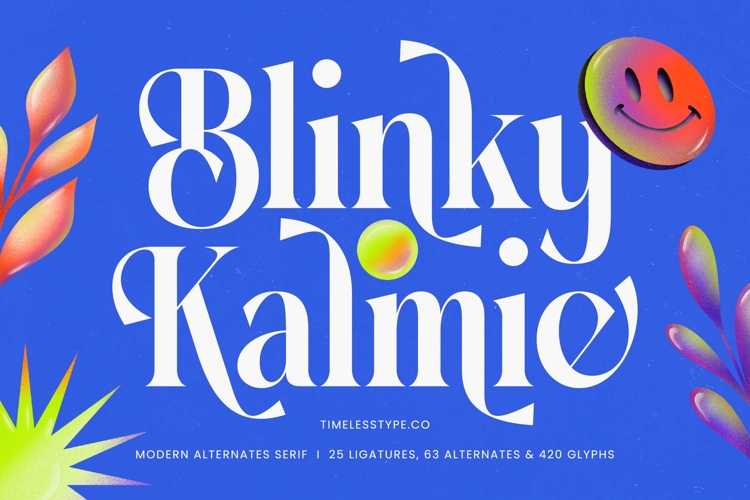
Blinky Kalmie - Modern Alternate Serif
Captivate your audience with unparalleled elegance and modern flair. Introducing Blinky Kalmie - Modern Alternate Serif, a font that masterfully blends timeless sophistication with a contemporary edge. Its distinctive high-contrast strokes and exquisitely designed curves create an instantly memorable and visually arresting presence, perfect for making a bold statement in any design.
Unleash boundless creative potential with Blinky Kalmie - Modern Alternate Serif. This versatile typeface boasts a rich collection of alternate characters and an array of elegant ligatures, providing exceptional customization options. Designers can craft unique, bespoke typography that adapts flawlessly to diverse brand narratives, ensuring every project stands out with unparalleled distinction.
Achieve global resonance with effortless communication. With its extensive multilingual support, Blinky Kalmie - Modern Alternate Serif adapts seamlessly across global markets, making it incredibly versatile for international projects. This commitment to global adaptability ensures your message maintains its sophisticated appeal and professional integrity worldwide, transcending language barriers with ease.